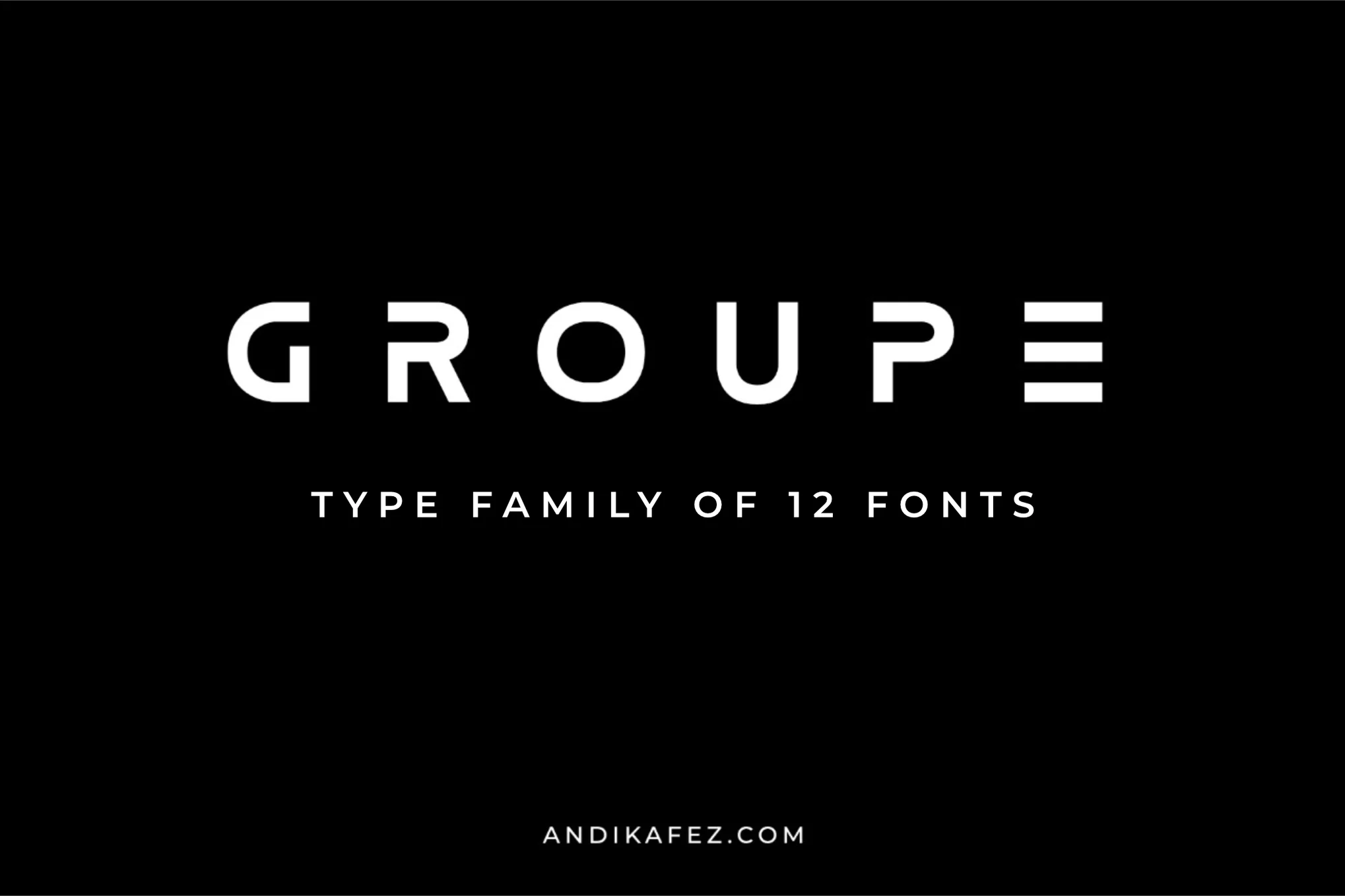
A Modern-Vintage Sans Serif Family
Where technical precision meets rugged elegance.
Introducing Groupe, a versatile font family designed for the forward-thinking creative. This isn’t just another sans serif; it is a carefully balanced hybrid that blends the sleek structure of modern tech with the soulful grit of vintage aesthetics.
Built on a foundation of clean, geometric lines, Groupe surprises with a subtle “grunge” personality and a hint of handwritten character. It creates a look that feels both futuristic and timeless—perfect for brands that want to convey innovation without losing their human touch.
Duality in Design: Seamlessly bridges the gap between engineering-grade structure and high-end artistic flair.
Massive Versatility: Whether you are designing a cutting-edge tech logo, a minimal luxury fashion spread, or a rustic wedding invitation, Groupe adapts to set the mood.
Complete Control: With 12 total fonts ranging from the delicate Thin to the commanding Black, you have the flexibility to create distinct hierarchies in your typography.
Tech Startups & Engineering Firms: Clean, authoritative, and precise.
High-End Fashion & Lifestyle: Luxurious, minimal, and bold.
Creative Branding: Logos, posters, and editorial headlines that need a standout personality.
The Heavyweights: Groupe Black & Black Italic, Groupe Bold & Bold Italic
The Standards: Groupe Medium & Medium Italic, Groupe Regular & Regular Italic
The Fine Details: Groupe Light & Light Italic, Groupe Thin & Thin Italic